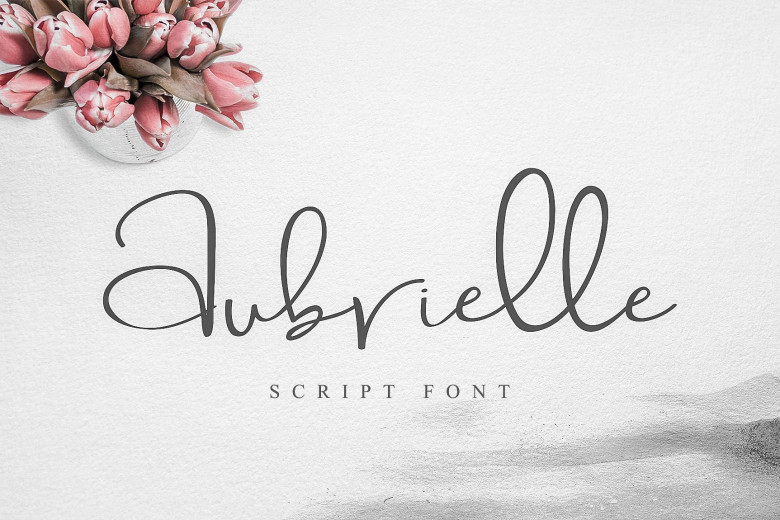
Aubrielle Script Font
Hi designer! This font is designed for font users who like the Modern Character. Introducing Aubrielle Font! It is designed by awan studio. Aubrielle script font! It allows you to create stunning and easy hand-lettering in an instant. Ideal for the logo, quotes, wedding, product label/packaging, fashion, letter, advertising, invitation, poster, merchandise, greeting cards, etc.